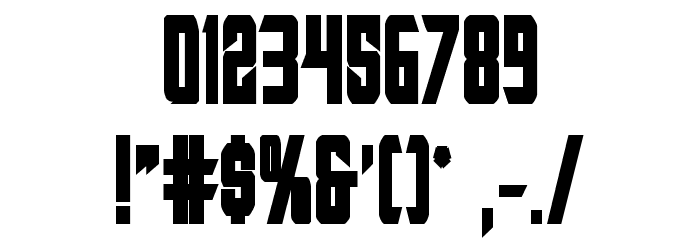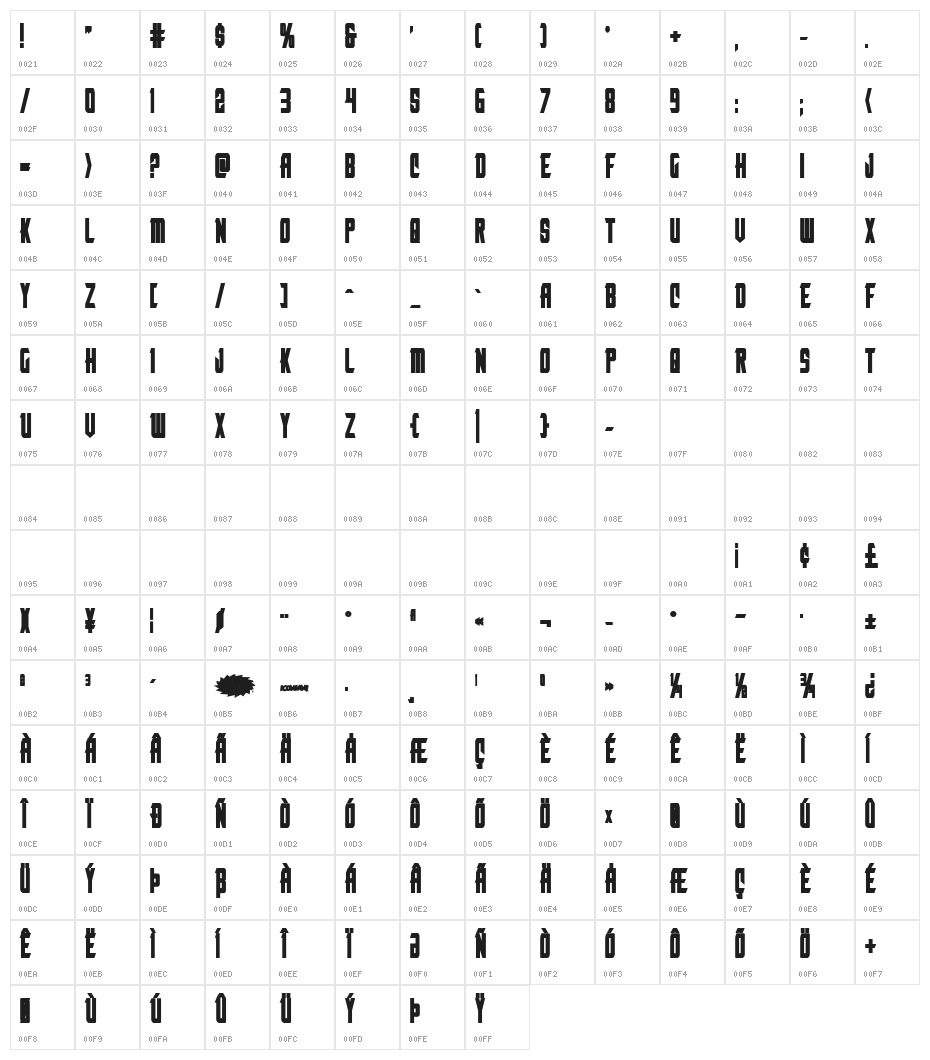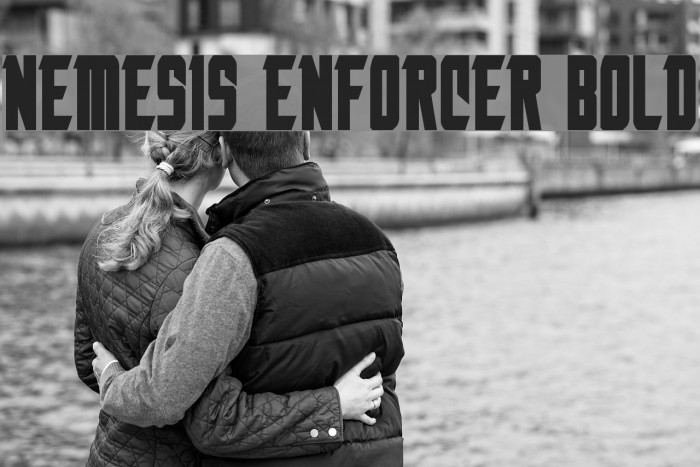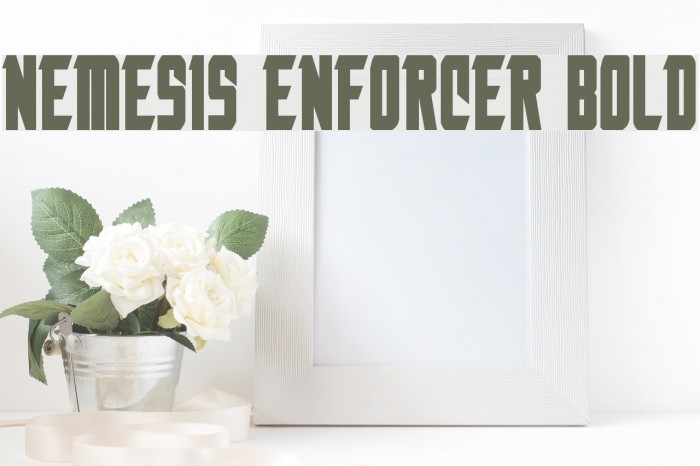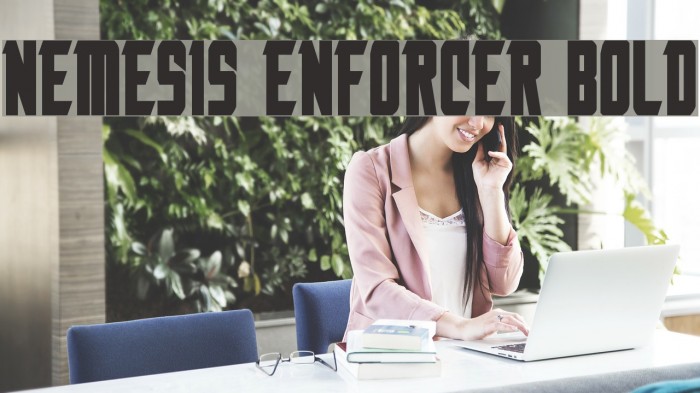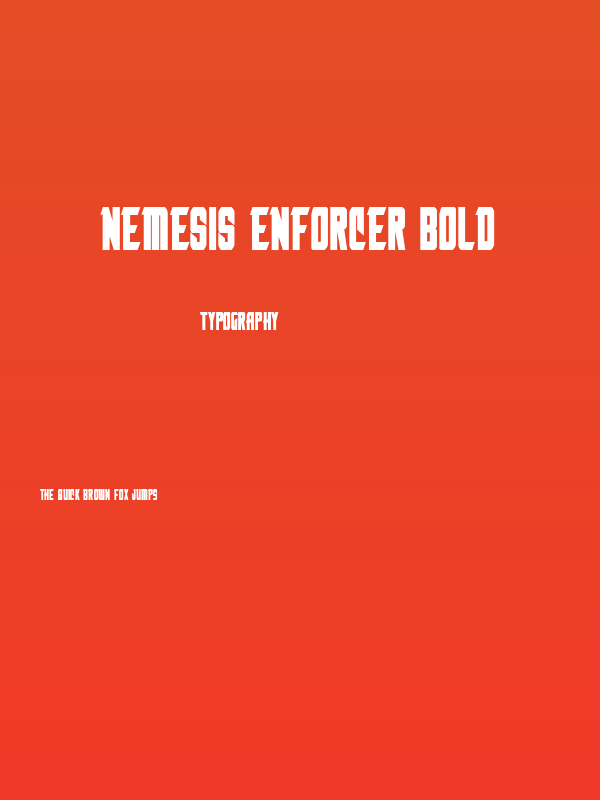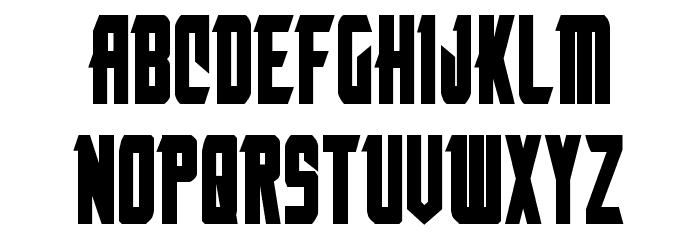
Nemesis Enforcer Bold Font
Nemesis Enforcer Bold Description
This bold, geometric font features sharp angles and a strong presence, making it ideal for impactful designs. The uppercase letters are uniform in height, with a distinctive angular style that conveys strength and modernity. The numbers and special characters maintain this bold aesthetic, ensuring consistency across all text elements. The font's design is reminiscent of futuristic or sci-fi themes, with a focus on boldness and clarity. Its unique style makes it stand out, perfect for projects that require a commanding visual element.
| Proposed Projects | Ideal for sci-fi movie posters, video game titles, branding for tech companies, or any project needing a bold, futuristic look. |